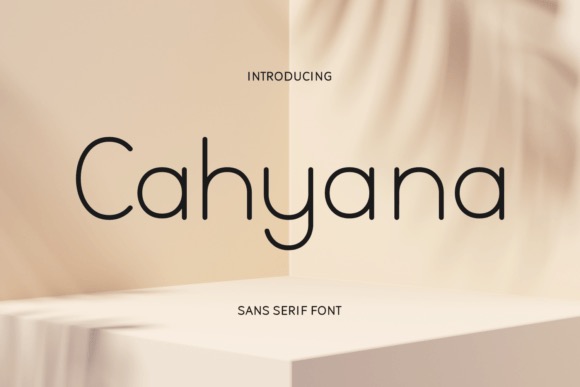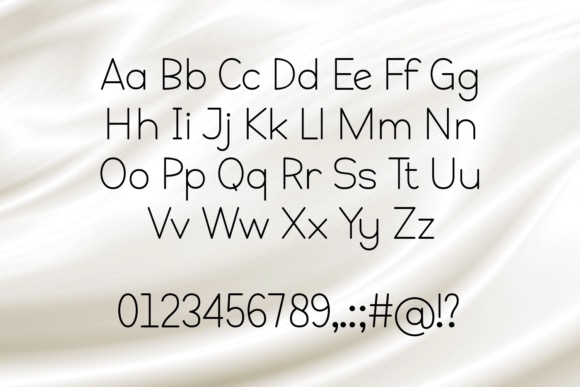
Cahyana is a modern and chic sans serif font that was released by Damai (7NTypes). It takes references from multiple styles and eras to design a unique classy typeface. This minimalist and clean vibe can easily apply to your favorite designs such as book covers, magazines, social media posts, invitations, and so much more!
Cahyana Sans Serif Font
Designer, Publisher: Damai (7NTypes)